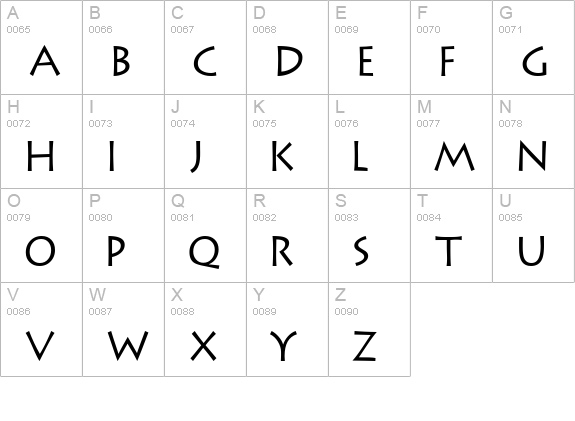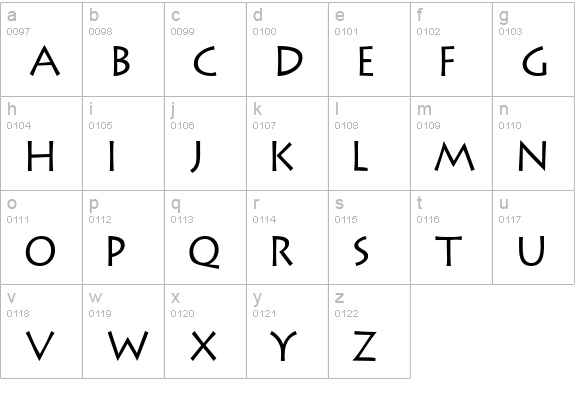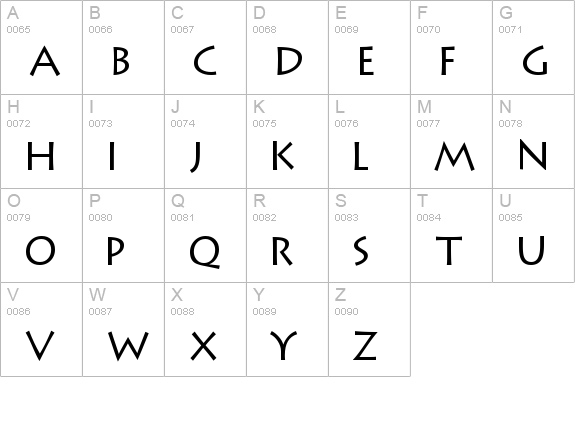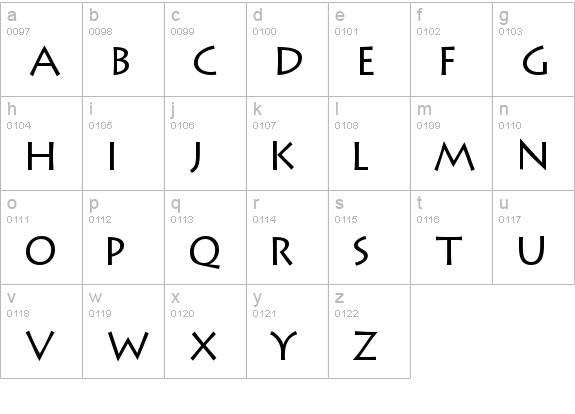
AustereCapsSSK Font Details
AustereCapsSSK is a sleek and modern font that exudes elegance and sophistication. With its clean lines and minimalist design, this typeface is perfect for creating a contemporary and professional look in your projects. The uppercase letters have a unique style that adds a touch of flair to any text. The best part? AustereCapsSSK is available for free! You can easily download this font from FontsMarket.com and use it in all your personal and commercial projects without any restrictions. Whether you're designing a logo, creating a poster, or crafting a website, AustereCapsSSK will elevate your work to the next level with its distinctive and refined appearance. Don't miss out on this fantastic opportunity to add a touch of sophistication to your designs with AustereCapsSSK.